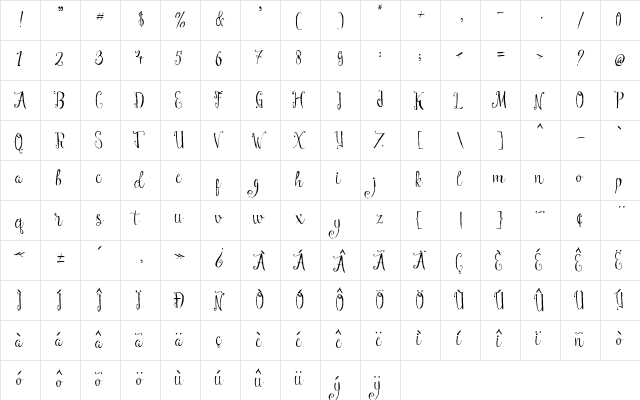
Manny Script Regular Font Preview
Manny Script Regular
Manny Script Regular Font Details
| Foundry | Queentype |
| Designer | Queentype |
Design Context for Manny Script Typeface
Manny Script brings a calligraphic fluidity to the page — its connecting strokes and expressive curves give it an unmistakably human quality.
Font Pairing: Combine Manny Script with a simple geometric sans for maximum contrast — the tension between flowing curves and clean structure is a classic typographic pairing.
Pro Tip: Pair Manny Script with a clean sans-serif for supporting text. The contrast between fluid script and geometric structure creates an elegant typographic hierarchy.